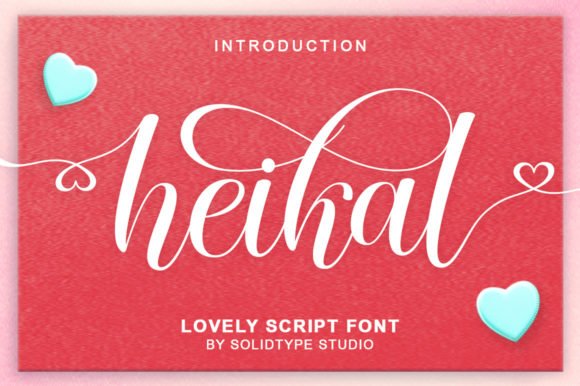
Unleashing Your Creativity with Heikal Script Font
As a designer, there’s nothing quite like the thrill of bringing a new project to life. It’s that moment, when the ideas start flowing and the possibilities seem endless, that we truly feel alive. And it’s in these moments that the right font can make all the difference.
Enter the Heikal Script Font, a stunning light handwritten font that adds a touch of luxury to any design project. With its unique feel and stunning impact, this font is sure to elevate your work to new heights. Whether you’re creating a wedding invitation, a branding package, or simply a beautiful piece of art, the Heikal Script Font is the perfect choice.
With its PUA encoding, accessing the amazing glyphs and ligatures of the Heikal Script Font is a breeze, giving you the freedom to get creative and push the boundaries of your design.
Heikal Script Font Key Features
- Font Family: Heikal Script
- Unique Characteristics: This script font features elegant, cursive lines and intricate details, making it perfect for creating artistic and luxurious designs, including wedding invitations, logos, and typography-based art
Designer Review: Heikal Script Font
Heikal Script Font is a beautiful, elegant script font that can elevate any design project. Here are some things that work well about it:
- ✨ Elegant and sophisticated design: Heikal Script Font is perfect for creating a luxurious and high-end feel in your designs.
- ✨ Wide language support: This font supports a wide range of languages, making it a great choice for multilingual designs.
- ✨ Great for headings and titles: The font’s elegant design makes it perfect for creating eye-catching headings and titles.
However, like any font, Heikal Script Font has its limitations:
- ⚠️ Limited legibility in small sizes: The font’s elegant design can make it difficult to read in small sizes, so it’s best used in larger font sizes.
- ⚠️ May not be suitable for body text: While the font is great for headings and titles, it may not be the best choice for body text due to its elegant design.
Overall, I think Heikal Script Font is a beautiful and elegant font that can add a touch of sophistication to any design project. While it has its limitations, it’s a great choice for headings and titles, and its wide language support makes it a great choice for multilingual designs.
Heikal Script Font is ideal for creating beautiful, handwritten-style text in a variety of designs. Some common use cases include:
– Blog and social media headers
– Custom signage and banners
– Personalized gifts and cards